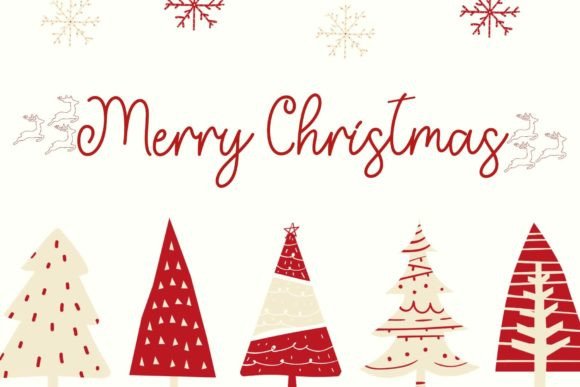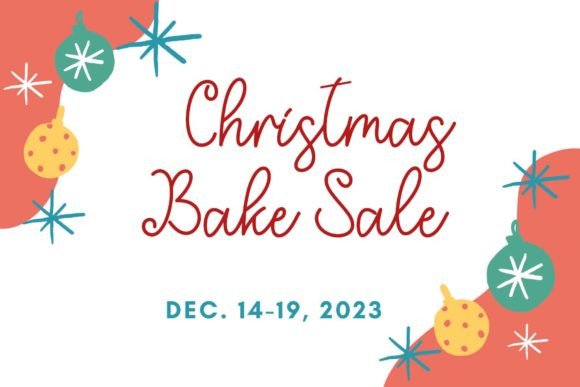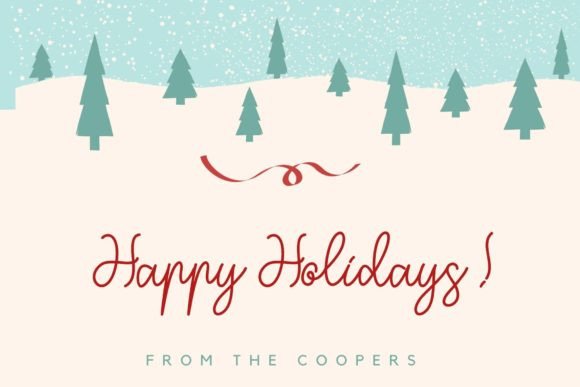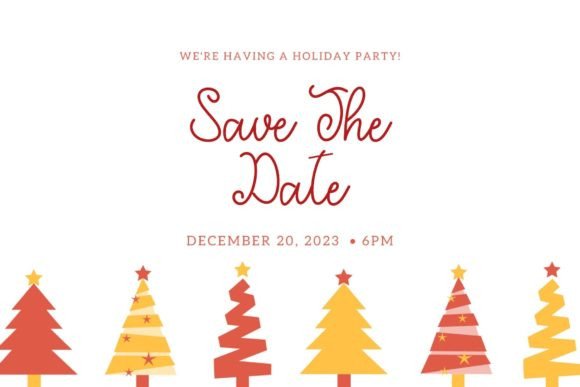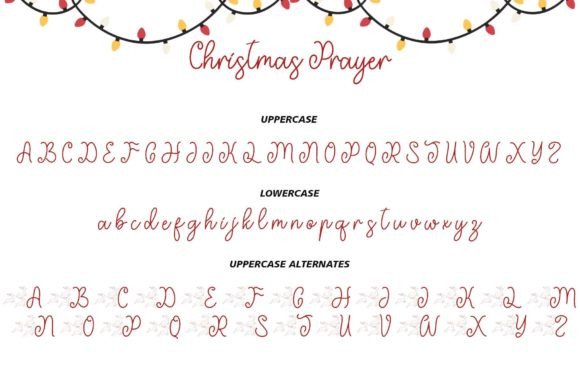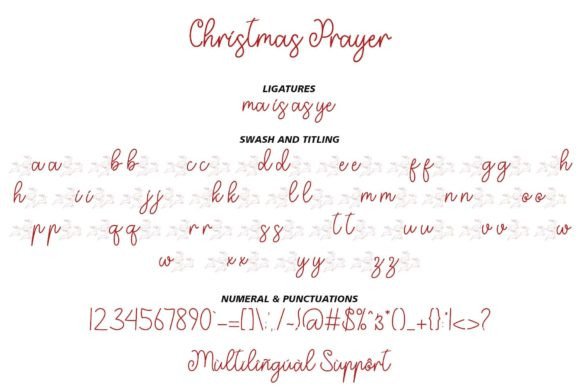
Introduction to Christmas Prayer Font Font
Fonts play a crucial role in design, and the Christmas Prayer Font font is a typeface that brings both character and versatility to any project. Whether you’re working on a branding project, a website, or a print design, the Christmas Prayer Font font offers a unique style that can elevate your work.
Christmas Prayer is a monoline script font with adorable jumping deer decorating the alternate characters.
Its festive, wintery look is perfect for all your favorite Christmas projects .
Key Features of Christmas Prayer Font Font
Why Choose Christmas Prayer Font Font?
The Christmas Prayer Font font is more than just a typeface – it’s a design tool that helps you communicate your message with style and clarity. Its unique character set and versatile design make it suitable for a wide range of applications, from elegant invitations to bold headlines.
With its carefully crafted letterforms and balanced proportions, the Christmas Prayer Font font ensures readability and visual appeal across all mediums.
What makes Christmas Prayer Font font special?
The Christmas Prayer Font font stands out with its unique design, exceptional readability, and versatility across various design applications.